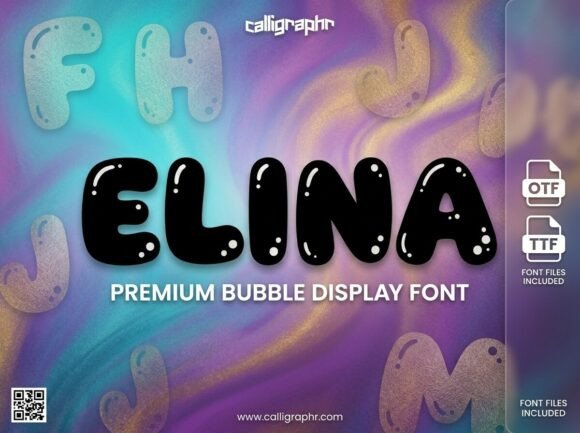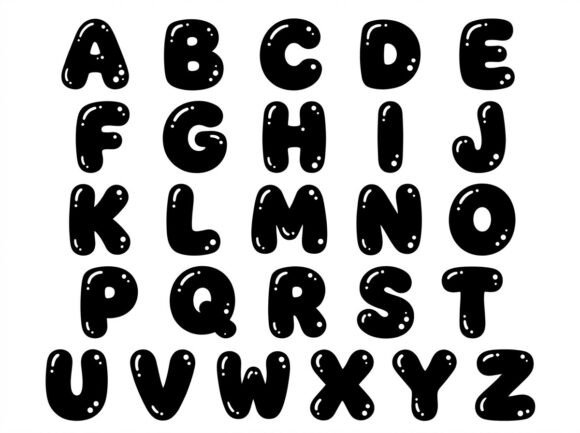
Introducing Elina Font: A Stunning Decorative Display Font
Are you tired of using the same old fonts for your creative projects? Look no further than Elina Font, a unique and artistic display font that’s sure to turn heads. Designed to be the center of attention, Elina Font features a strong visual personality and versatile design that’s perfect for creators who want to break away from the ordinary.
What Makes Elina Font Special?
Elina Font is a decorative display font that’s specifically designed for high-impact headlines, logos, and decorative initials. With its unique artistic elements and strong visual personality, this font is perfect for creators who want to add a touch of elegance and sophistication to their designs. Whether you’re working on a bold headline, artistic logo, or creative packaging, Elina Font is the perfect choice.
Key Features of Elina Font
- Unique Artistic Elements: Elina Font features unique artistic elements that set it apart from other fonts. Each letter is carefully crafted to be a work of art, making it perfect for decorative initials and high-impact headlines.
- Strong Visual Personality: With its strong visual personality, Elina Font is sure to grab attention and make a lasting impression. Whether you’re using it for a headline, logo, or packaging, this font is sure to stand out.
- Versatile Design: Elina Font is versatile enough for a wide range of design applications, from bold headlines and artistic logos to creative packaging.
- Professional and Polished Finish: Despite its decorative nature, Elina Font maintains a professional and polished finish, making it perfect for use in a variety of design projects.
IMPORTANT NOTE: Elina Font is an ALL-CAPS (Uppercase Only) display typeface. This means that it does not include lowercase letters. It’s specifically designed for high-impact headlines, logos, and decorative initials where every letter is a work of art.
Why Choose Elina Font?
So why choose Elina Font for your design projects? Here are just a few reasons:
- Add a Touch of Elegance: With its unique artistic elements and strong visual personality, Elina Font is the perfect choice for adding a touch of elegance and sophistication to your designs.
- Stand Out from the Crowd: Elina Font is sure to grab attention and make a lasting impression. Whether you’re working on a headline, logo, or packaging, this font is sure to stand out.
- Perfect for Creative Projects: Elina Font is perfect for a wide range of creative projects, from bold headlines and artistic logos to creative packaging and more.
Tips for Using Elina Font
Here are a few tips for using Elina Font in your design projects:
- Use it for Headlines and Titles: Elina Font is perfect for use in headlines and titles. Its strong visual personality and unique artistic elements make it sure to grab attention.
- Pair it with Other Fonts: Elina Font can be paired with other fonts to create a unique and visually appealing design. Try pairing it with a simple sans-serif font for a bold and eye-catching look.
- Experiment with Different Colors: Elina Font looks great in a wide range of colors. Experiment with different colors and combinations to find the one that works best for your design.
Elina Font is a stunning decorative display font that’s perfect for creators who want to add a touch of elegance and sophistication to their designs. With its unique artistic elements, strong visual personality, and versatile design, this font is sure to grab attention and make a lasting impression. Whether you’re working on a bold headline, artistic logo, or creative packaging, Elina Font is the perfect choice.